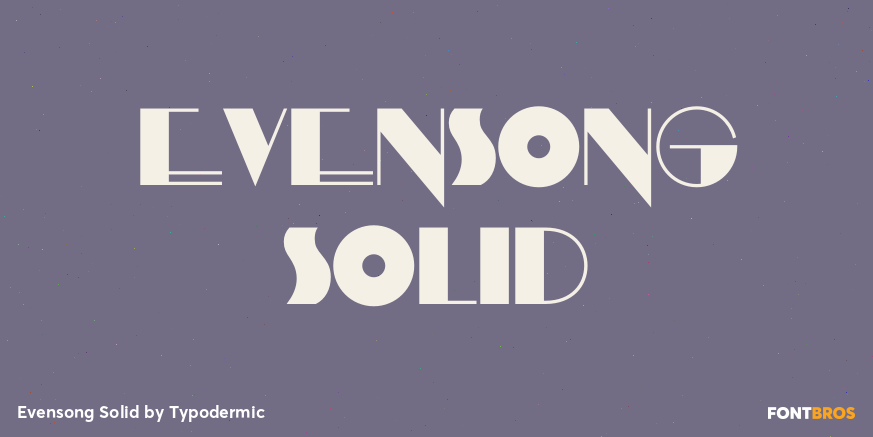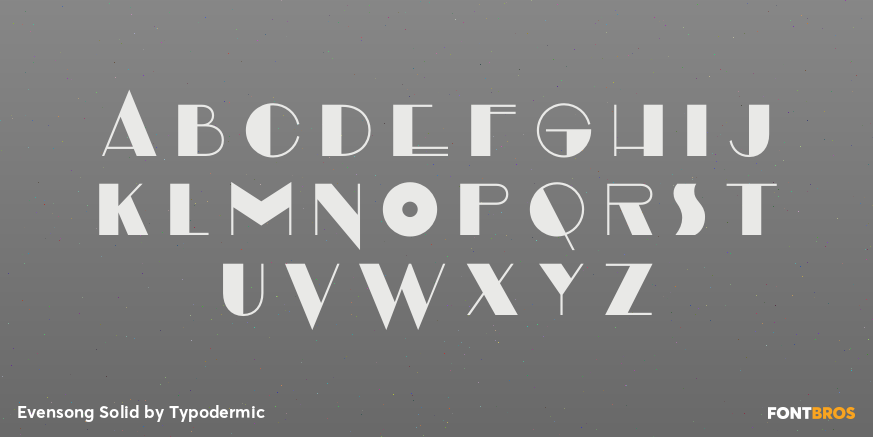
Evensong Solid
Buy NowEvensong Solid is the complete one-color version of the design, combining filled heavy shapes with Evensong’s fine linear strokes. The unusual distribution of weight, narrow capitals, and eccentric curves remain fully visible without assembling multiple layers. Unlike Evensong Fill, Solid forms complete readable letters on its own; unlike Evensong Hollow, its broad sections carry continuous color.
Use Solid for fashion campaign titles, cosmetics packaging, jewelry promotions, beauty branding, and exhibition graphics that need Evensong’s Art Deco character in a direct single-color treatment. For a layered result, place Evensong Fill over matching Solid text: the fitted interior shapes can take a second color, gradient, or pattern while Solid supplies the surrounding structure and fine strokes.